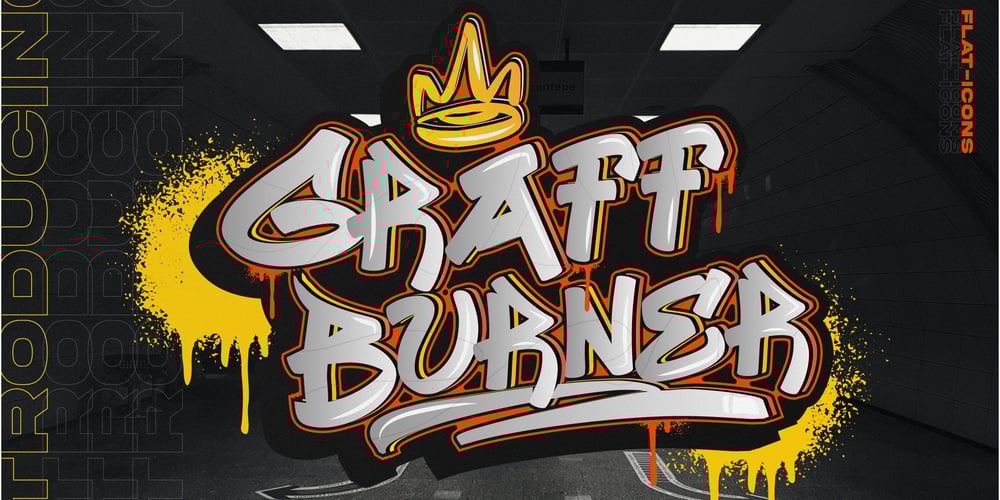
Graff Burner Font Family was designed by Heri Imanudin and published by Krafted. Graff Burner contains 2 styles and family package options. Wish to add some urban spirit to your design? Looking for a font that makes an impact?Introducing Graff Burner – an Urban Graffiti font.Turn your design into real street art with a font that understands the urban culture. Print or digital, Graff Burner will catch the attention of your audience. Give it a go and see your brand grow.What you’ll get: Multilingual & Ligature Support Full sets of Punctuation and Numerals Compatible with: Adobe Suite Microsoft Office Keynote Pages Software Requirements: The fonts that you’ll receive in the pack are widely supported by most software. In order to get the full functionality of the selection of standard ligatures (custom-created letters) in the script font, any software that can read OpenType fonts will work. We hope you enjoy this font and that it makes your branding sparkle! Feel free to reach out to us if you’d like more information or if you have any concerns.